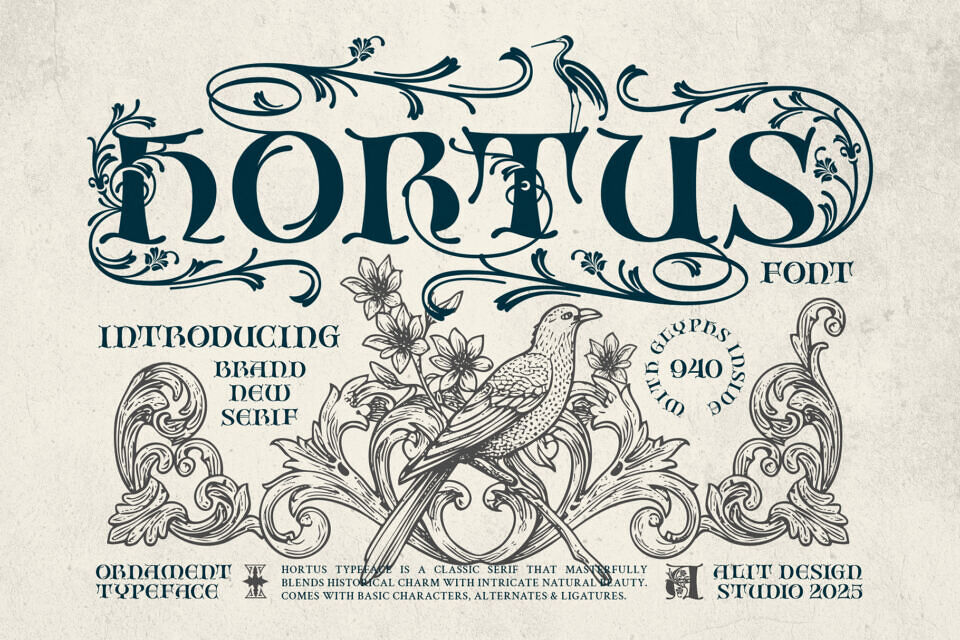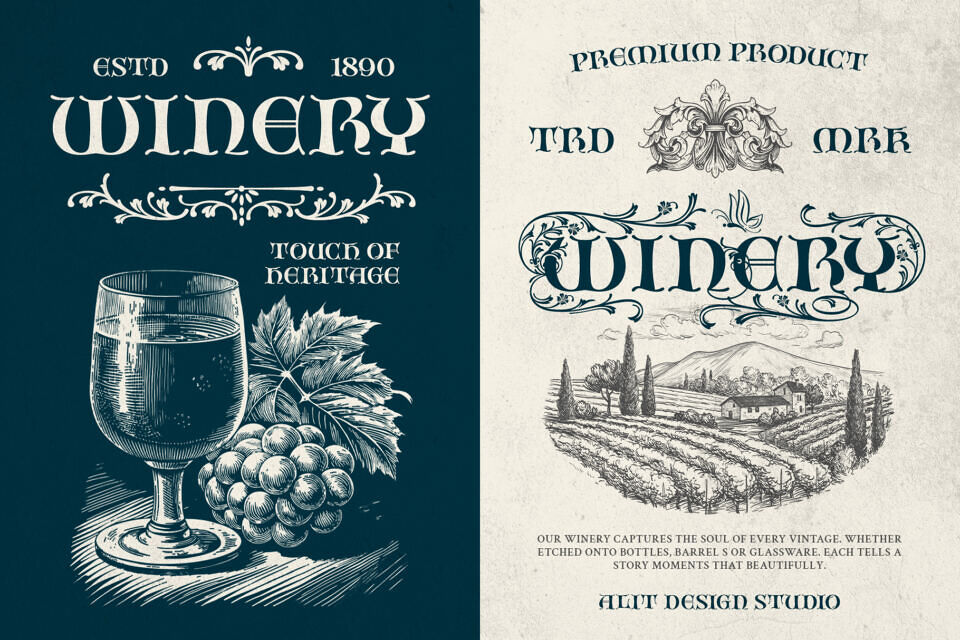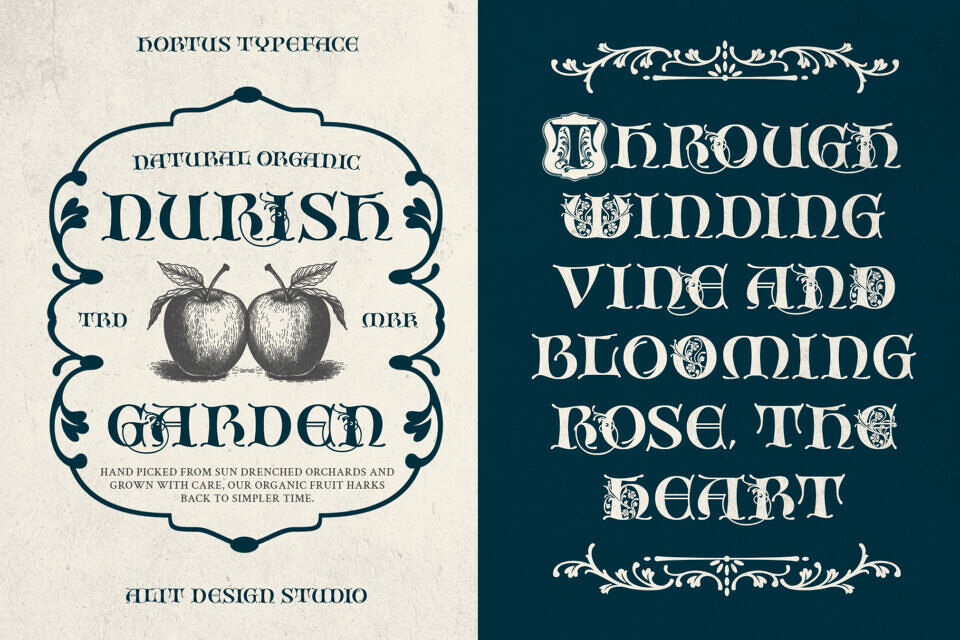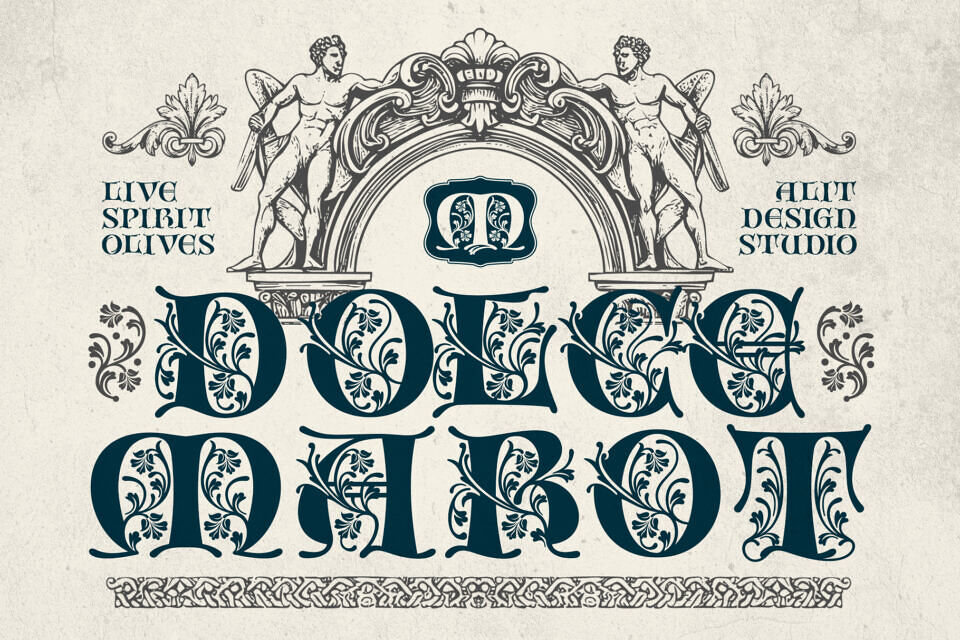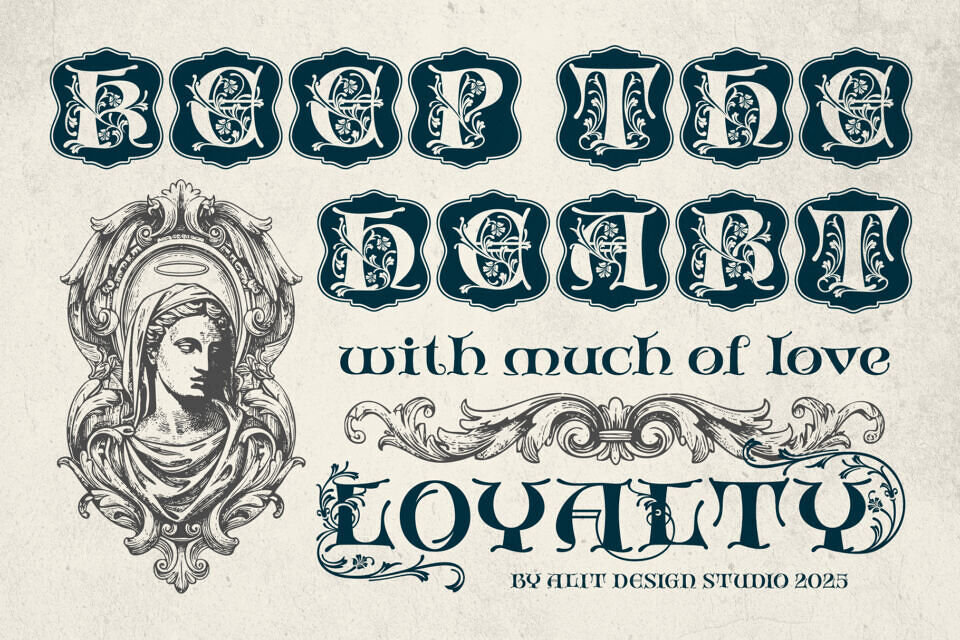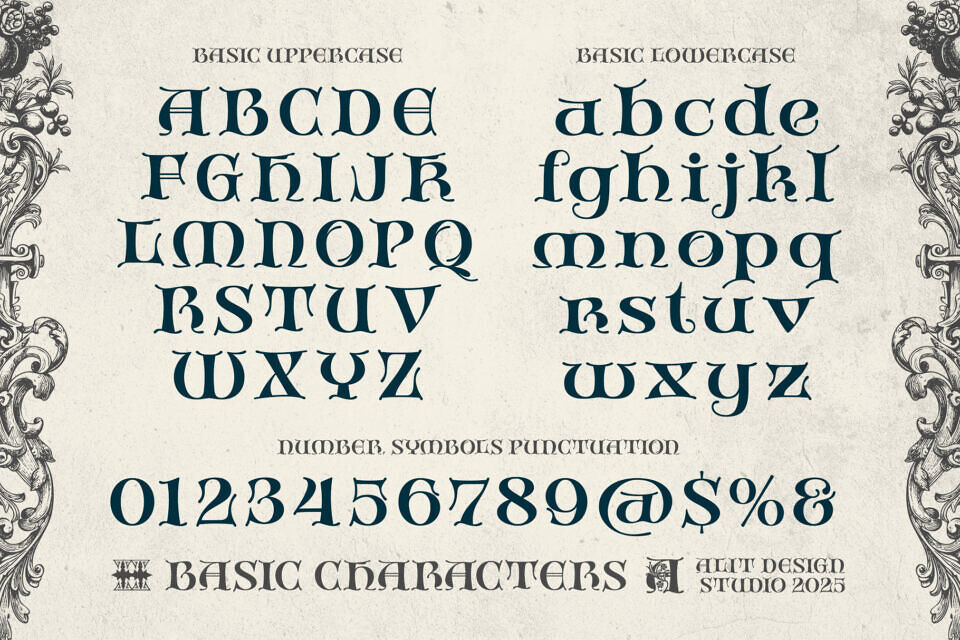
Step into a world of timeless beauty with Hortus, a masterfully crafted decorative typeface that breathes life into the grandeur of classical European and Greco-Roman art.
Inspired by ancient stone carvings, lush botanical illustrations, and ornate manuscripts, Hortus masterfully blends historical charm with intricate natural beauty.
Hortus is not merely a font; it is a complete design toolkit for creating opulent and sophisticated works. The typeface features a strong, legible base form that blossoms into an extraordinary collection of alternates. From letters filled with delicate floral motifs to characters adorned with elegant, flowing swashes, Hortus provides endless possibilities to make your text truly unique.